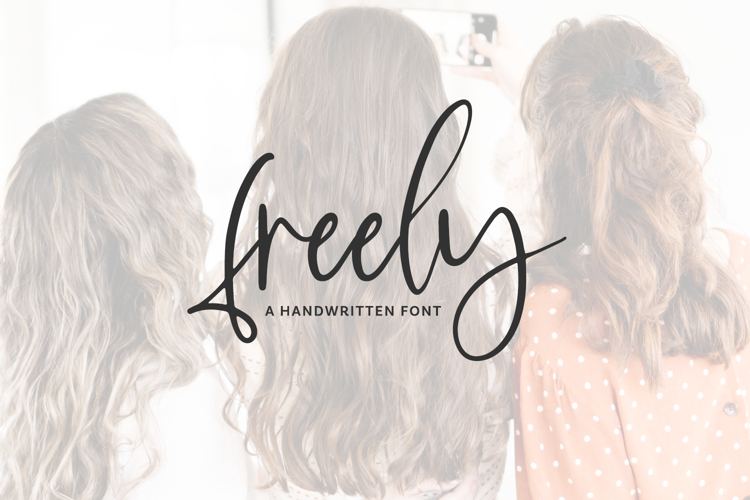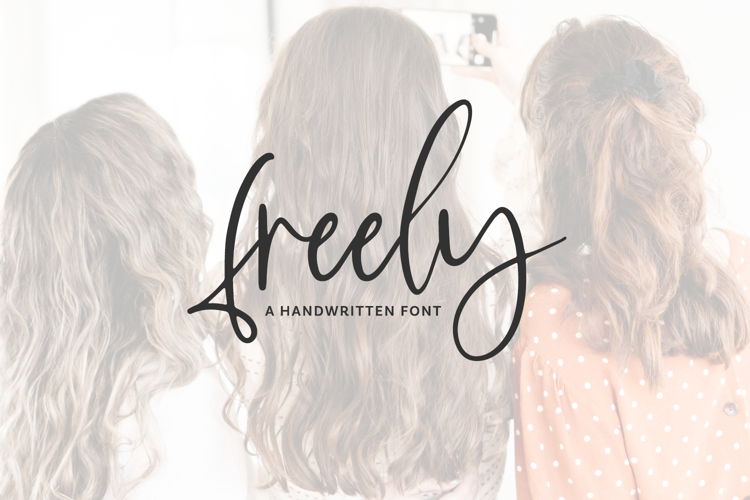
Introducing Freely Script, a handwritten signature style font. This stylish font features a messy, casual look.
Freely Script is best for:
- website design + website accents - think design blogs, travel blogs, fashion blogs, & more